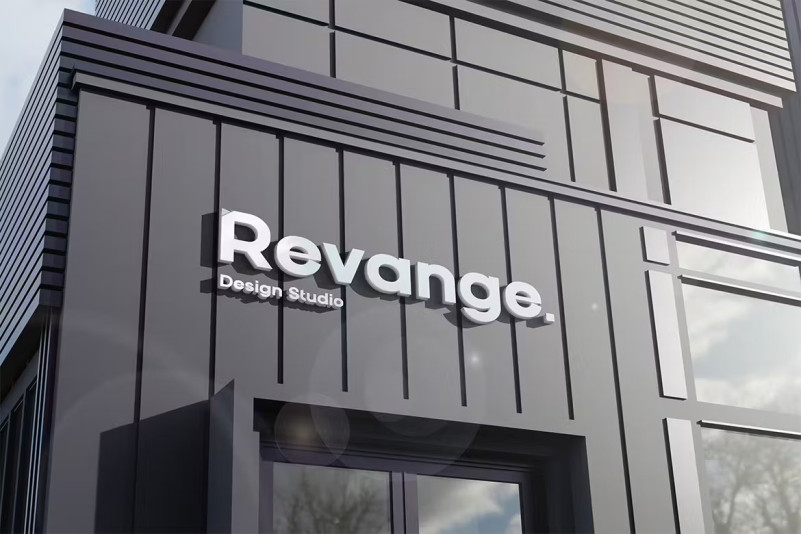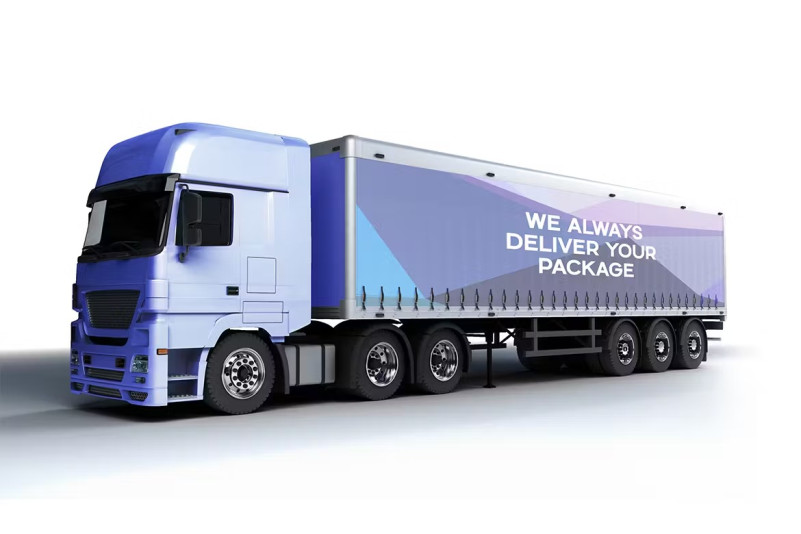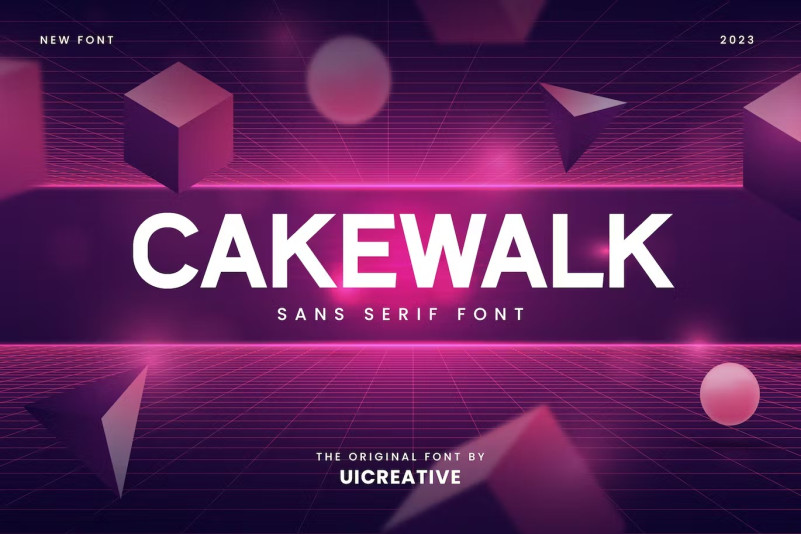
Cakewalk Font
Cakewalk Font – A modern sans serif font that is beautiful, classy, elegant and modern. This font is perfect for a wide variety of projects, such as signature, stationery, logo, wedding, typographic quotes, magazine or book covers, website headers, apparel, branding, packaging design, etc. Additionally, fashion-related branding or editorial design exhibits both masculine and feminine qualities.